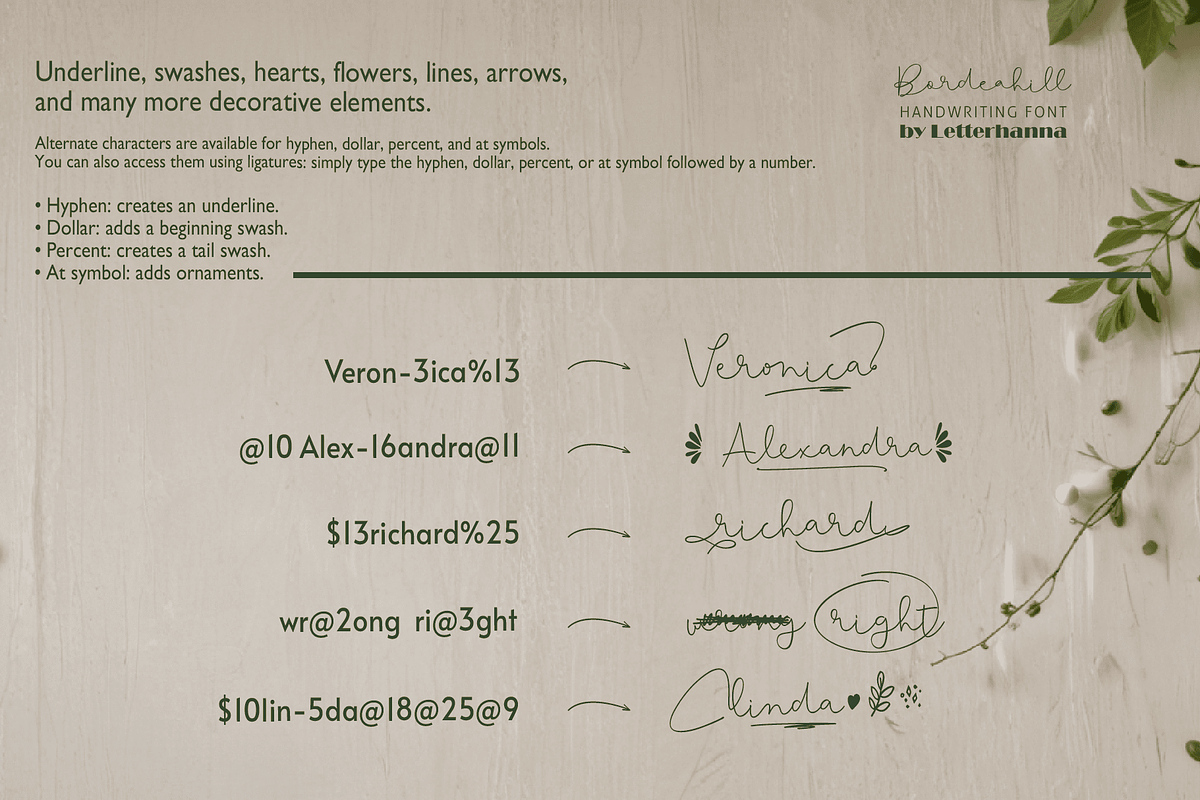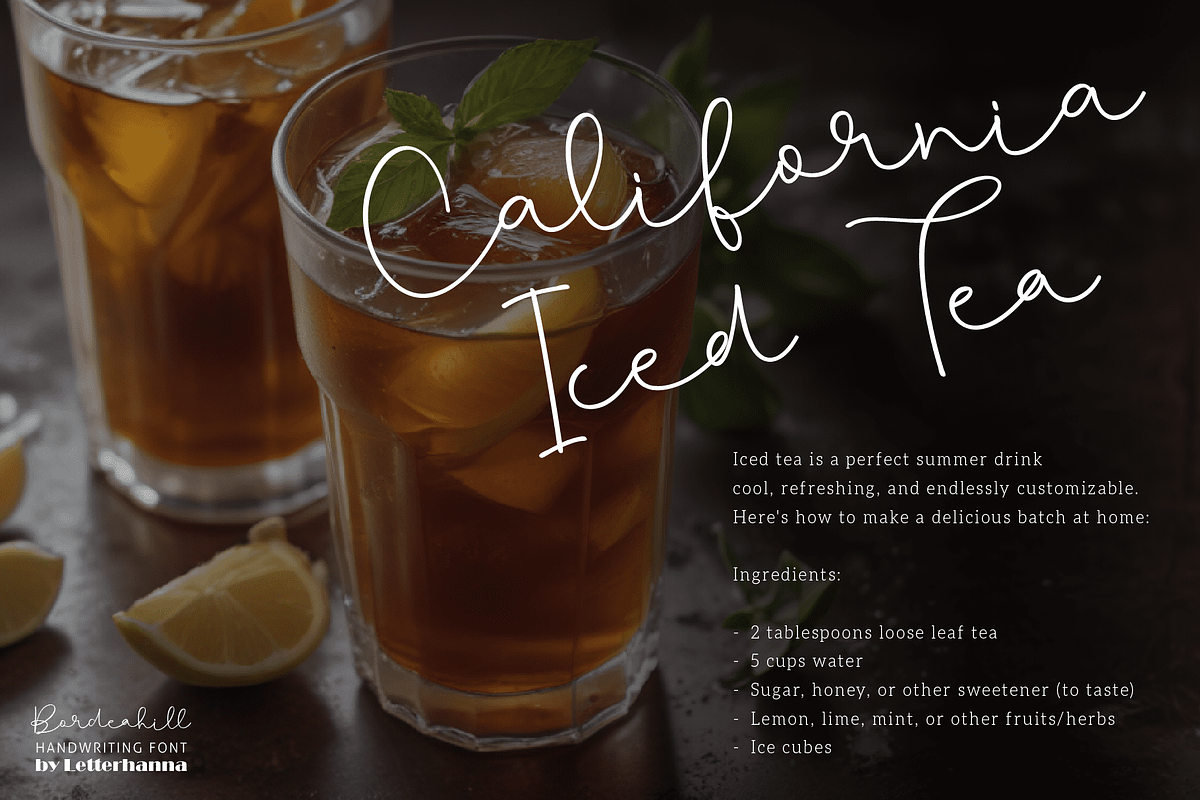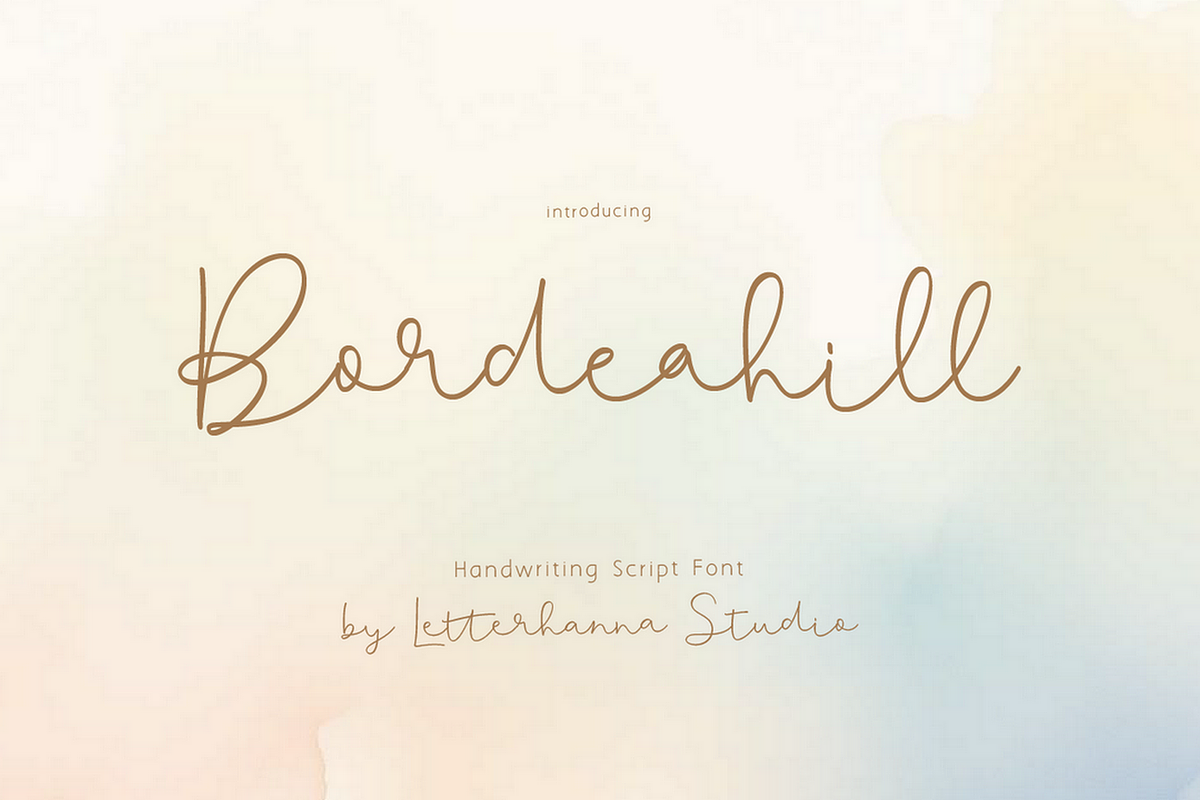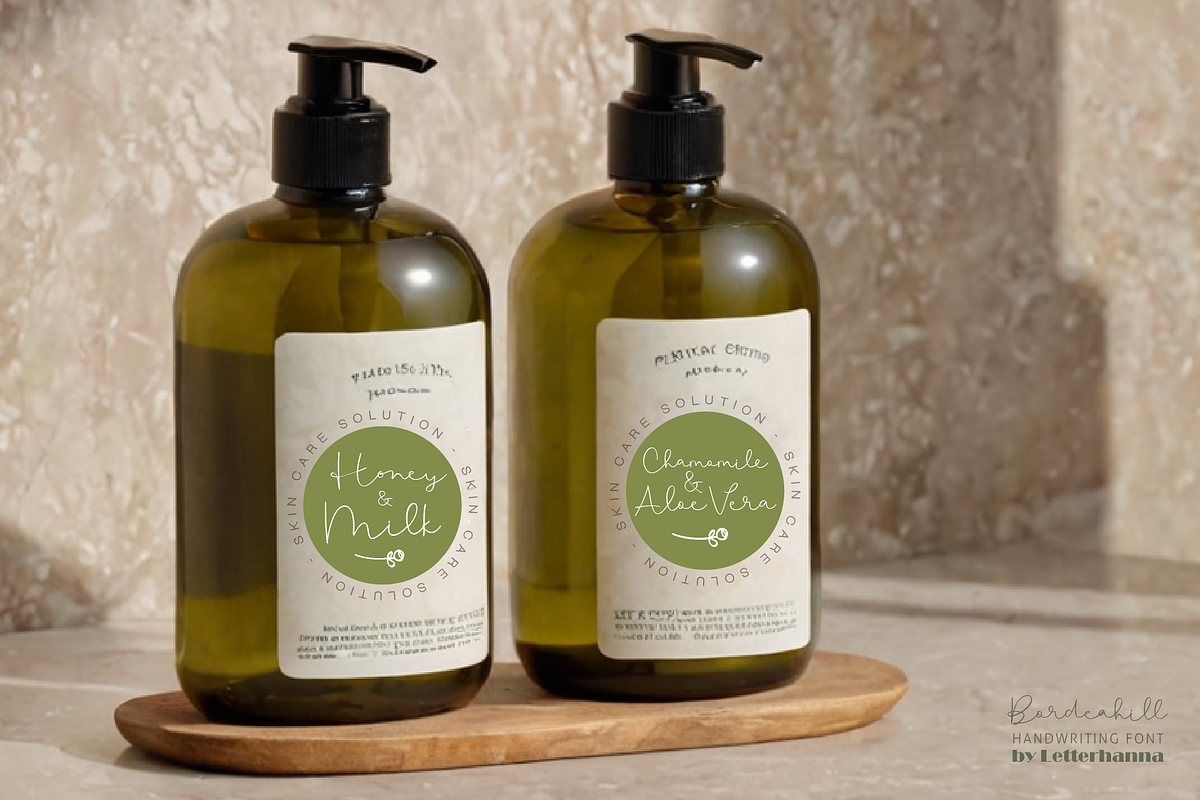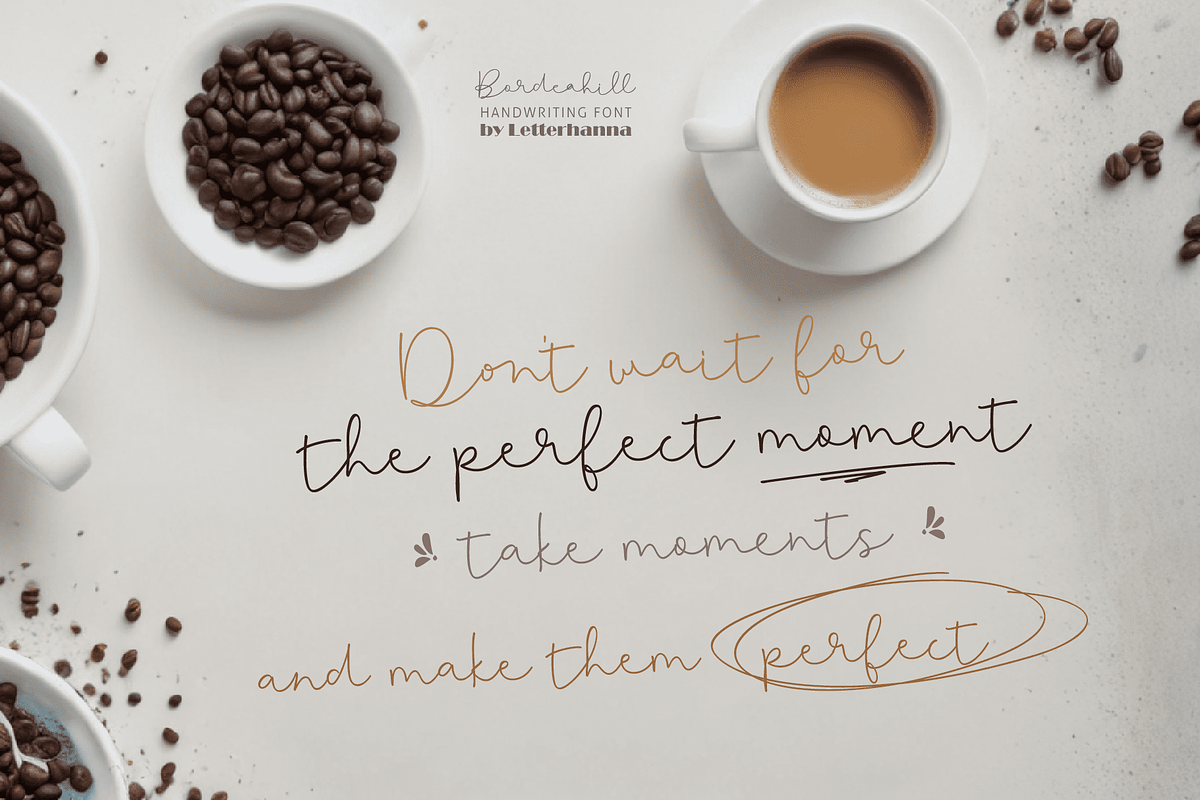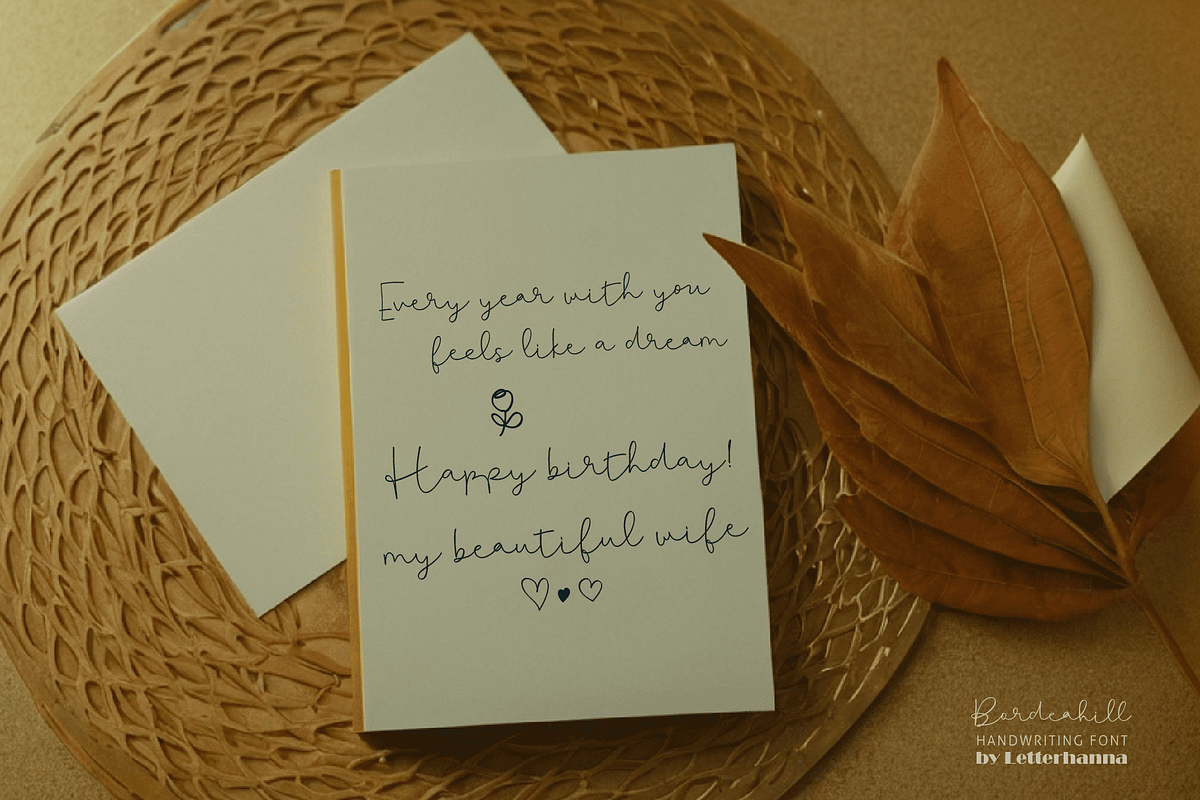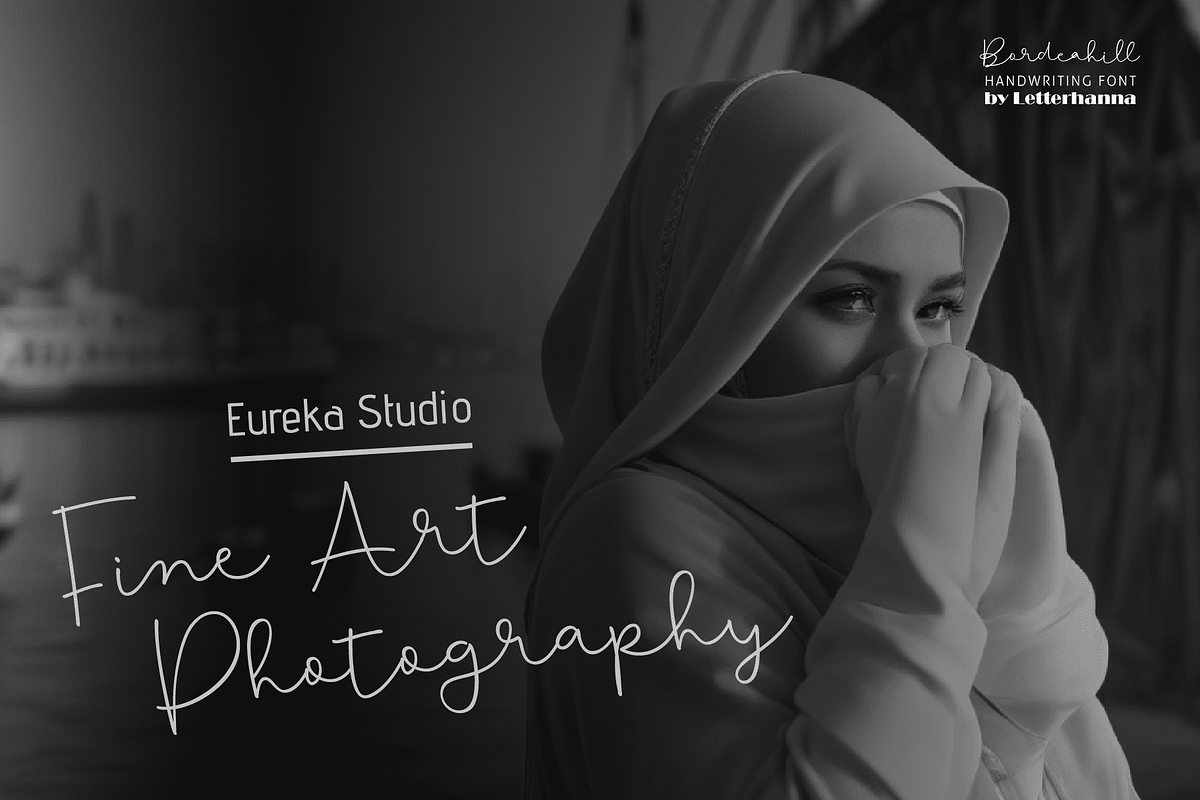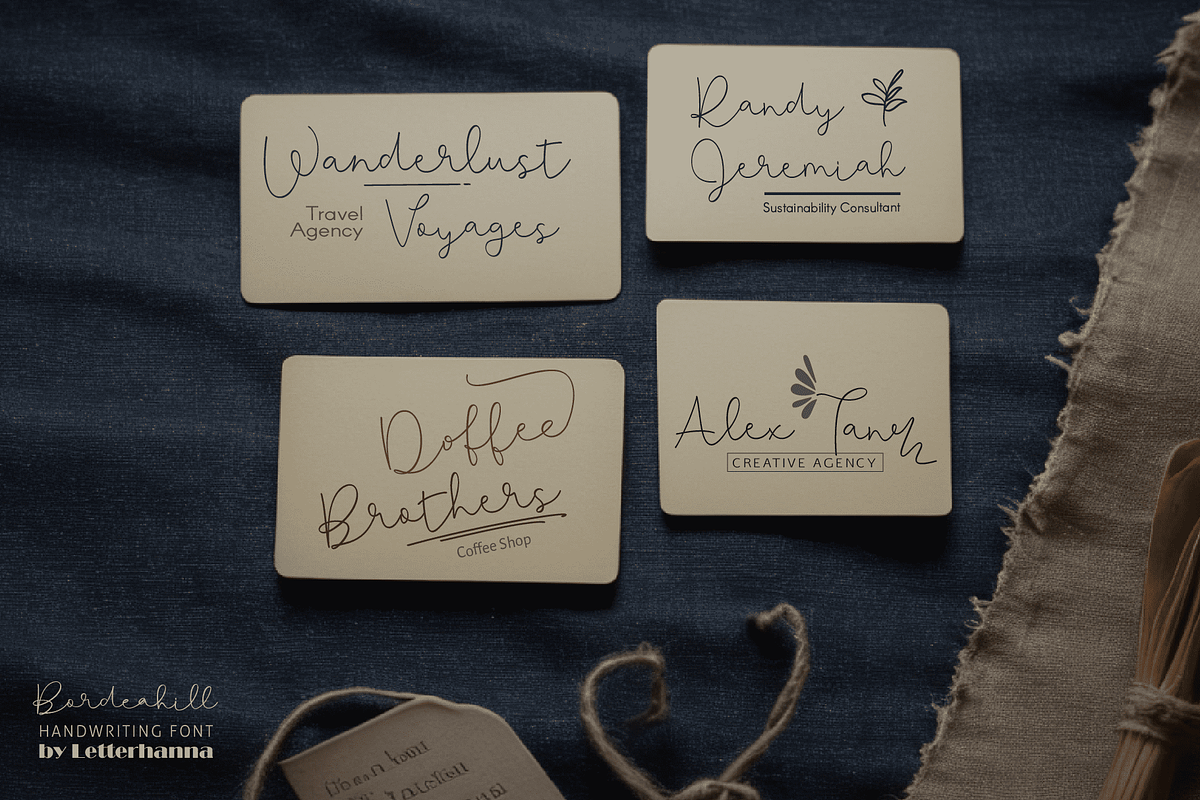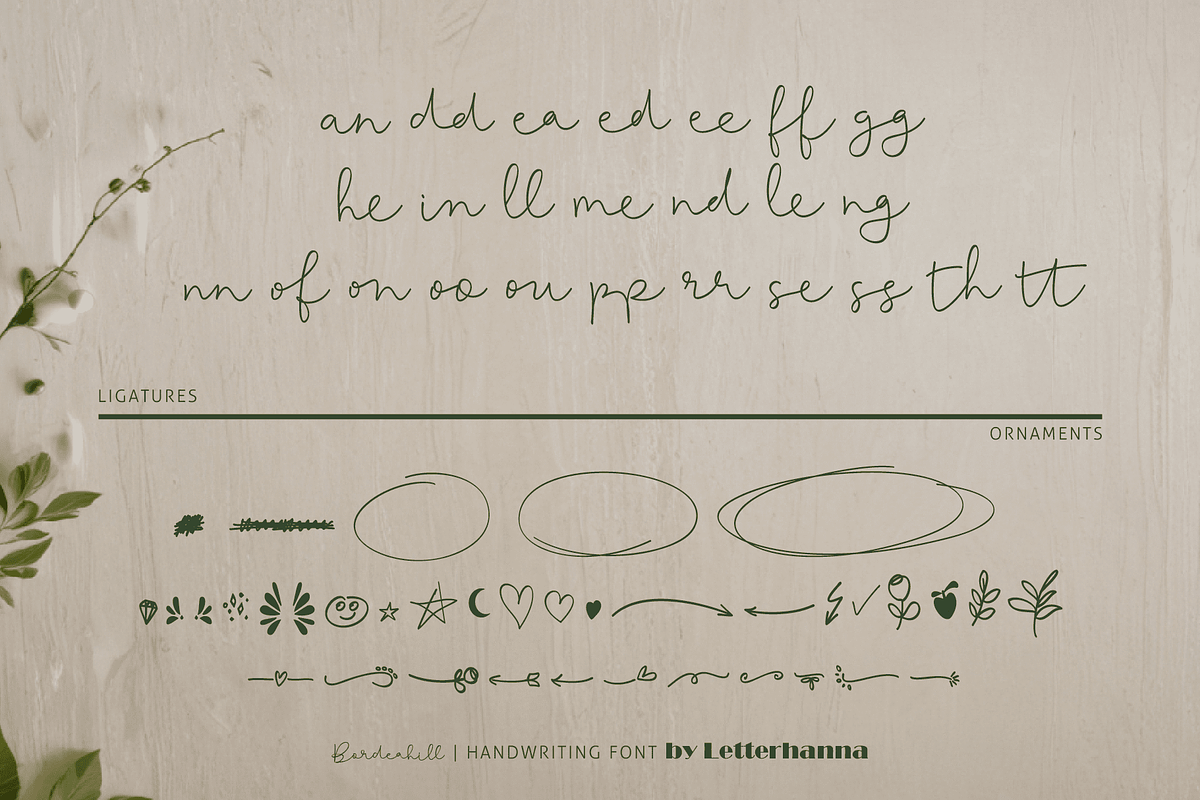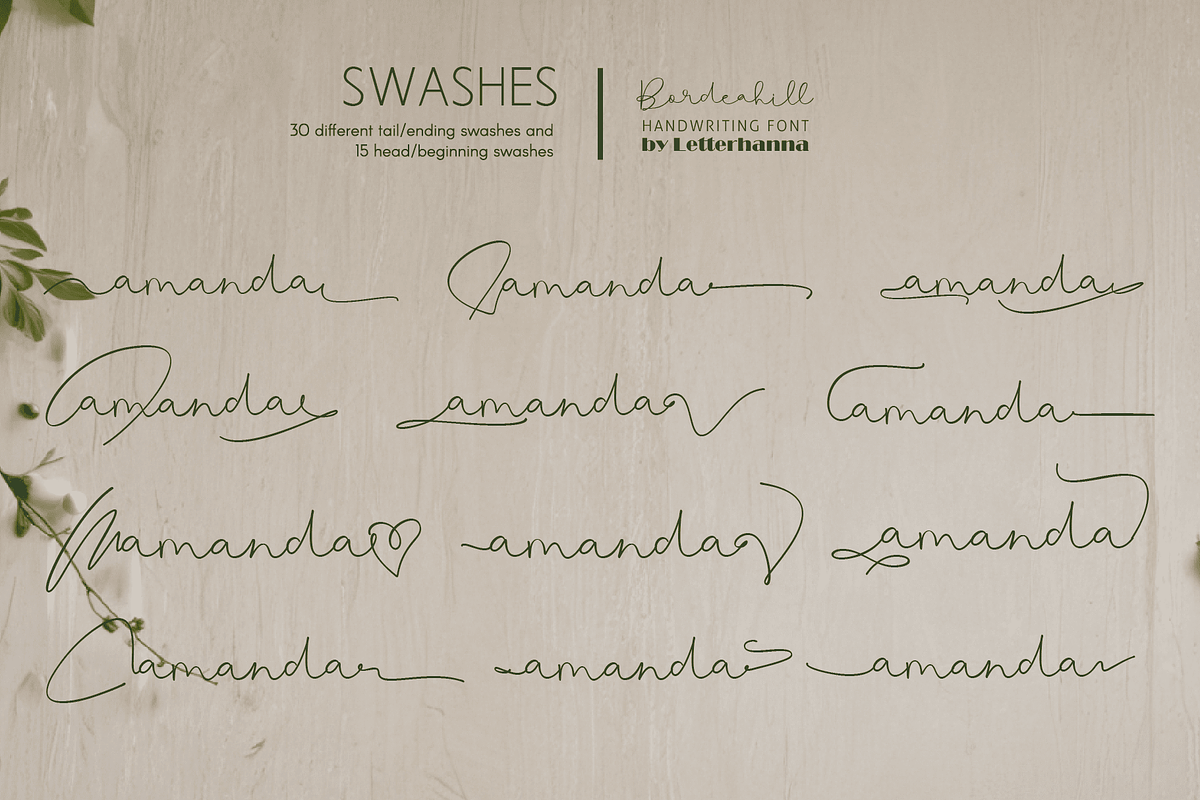
Bordeahill Font
Introducing Bordeahill, a charming new handwriting script font designed to elevate your creative projects with elegance and personality. With its smooth, flowing strokes and a touch of playful flair, Bordeahill captures the perfect balance between sophistication and warmth. Whether you're crafting invitations, logos, or social media posts, this font is here to help your words stand out in style.
Bordeahill offers versatile features, including stylish swashes and alternate characters, giving you endless possibilities to customize your designs. Its timeless appeal and modern touch make it a must-have for anyone looking to add a personal, artistic feel to their work. Make your creations unforgettable with Bordeahill—the script font that brings your ideas to life!
Easy Access to Glyphs and Swashes
Gain easy access to all alternate glyphs, swashes, ornaments, and underlines by simply using ligatures. You can try them out yourself in the font preview tool on our website, letterhanna.com.
Accessing Swashes and Ornaments
– Underline Swashes: Use a hyphen symbol “-” followed by a number between 1 and 30. For example, type “-3”, “-22”, or “-17” to get various underline swashes.
– Head/Beginning Swashes: Use a dollar sign “$” followed by a number between 1 and 9. For example, type “$2” or “$8” to get different head/beginning swashes.
– Tail/Ending Swashes: Use a percent sign “%” followed by a number between 1 and 30. For example, type “%3” or “%15” to get various tail/ending swashes.
– Ornaments: Use an “at” symbol “@” followed by a number between 1 and 26. For example, type “@4” or “@13” to get different ornaments.
PUA Encoding for Ease of Use, which means you can access all the glyphs and swashes with ease!
Uppercase and lowercase letters Numbers and punctuation marks Multilingual support Ligatures Beginning and ending swashes Underline swashes Ornaments Easy access to swashes using ligatures